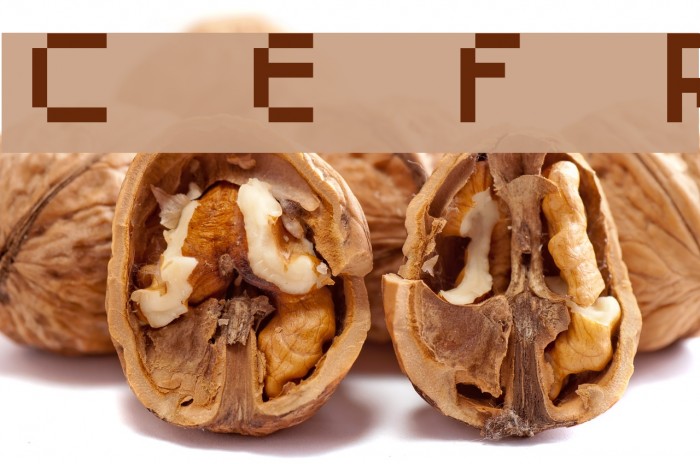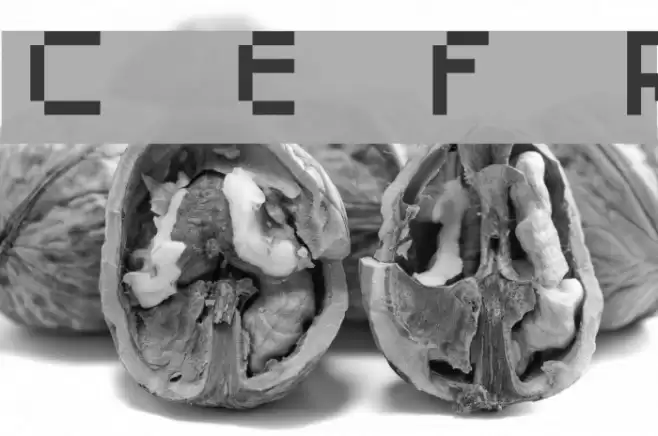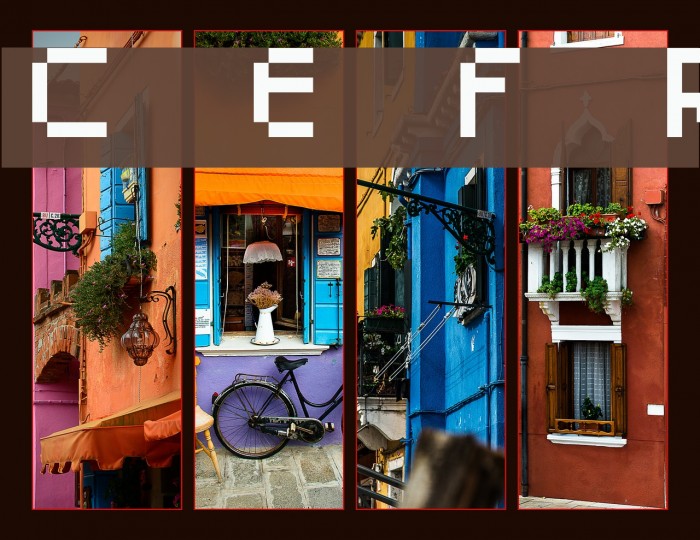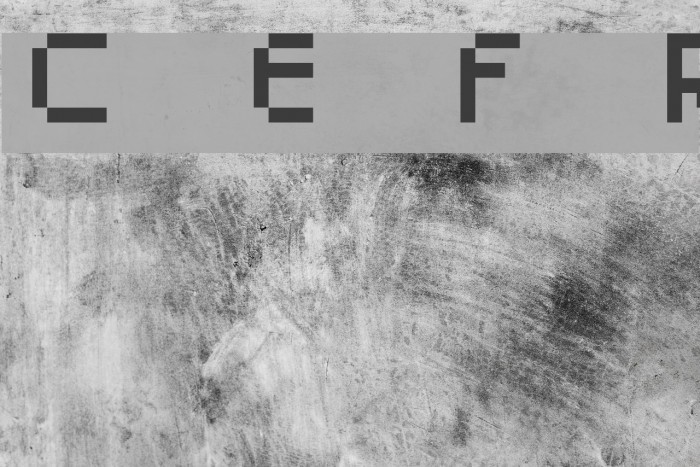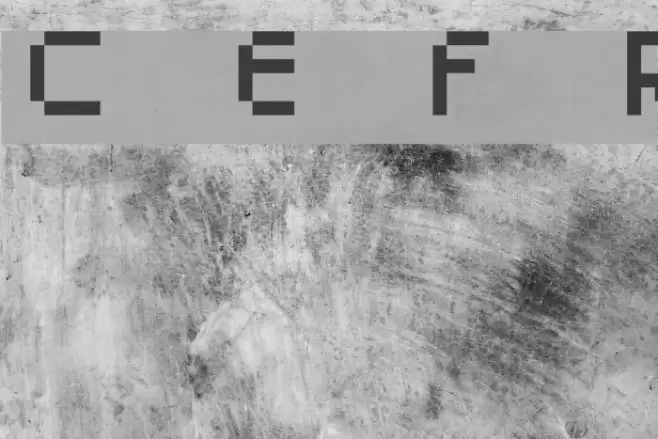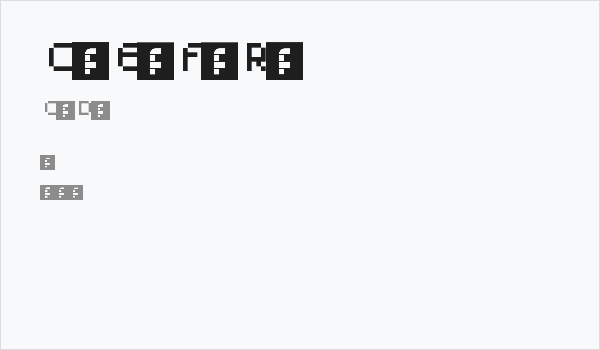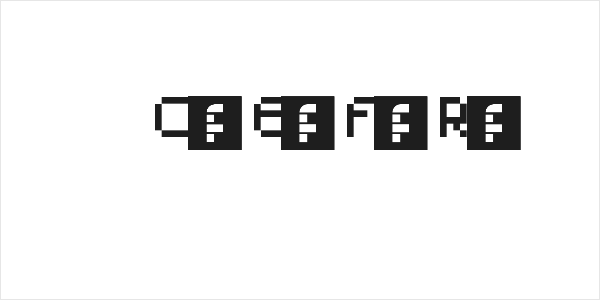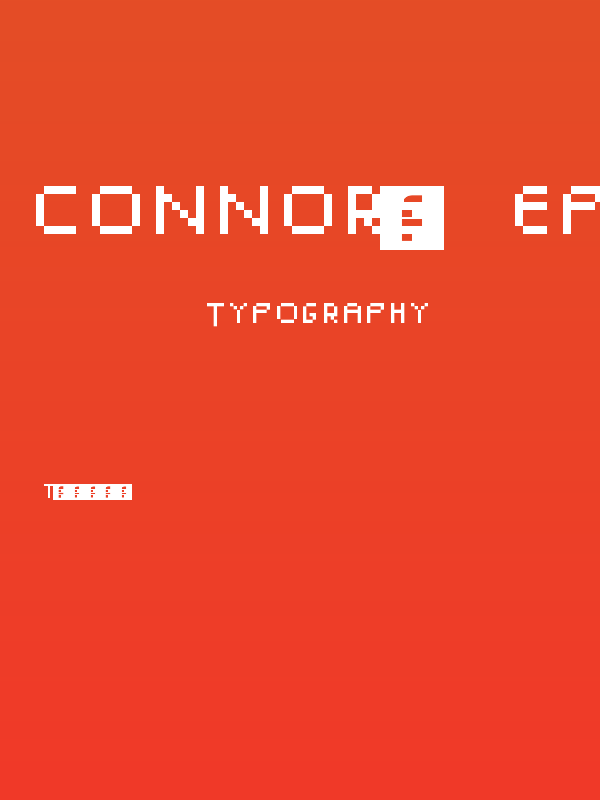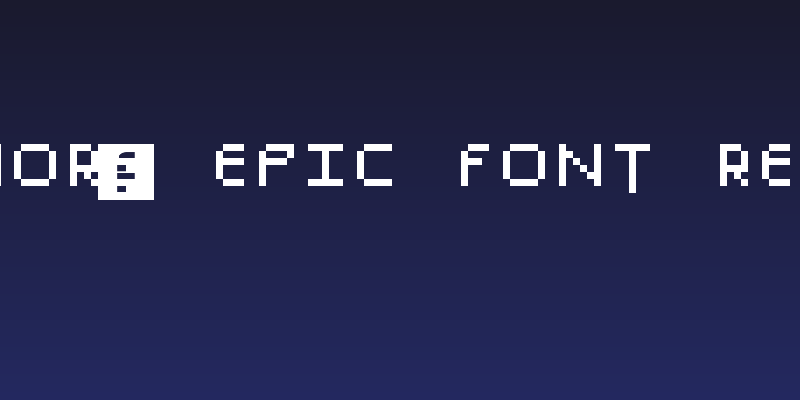
Connor's Epic Font Regular Font
Connor's Epic Font Regular Description
This font features a pixelated, blocky design reminiscent of early digital or video game typography. Each character is constructed with a uniform grid-like structure, giving it a distinctly retro and digital aesthetic. The uppercase and lowercase letters maintain a consistent height, contributing to a monospaced appearance. The geometric shapes are straightforward, with sharp angles and no curves, emphasizing a minimalist and utilitarian style. This font is ideal for projects that aim to evoke nostalgia for classic arcade games or to create a futuristic, tech-oriented look.
| Use Case | Headlines, Logos, Digital Art |
| Proposed Projects | Ideal for video game design, tech-themed posters, retro digital art, and any project requiring a nostalgic or futuristic feel. |